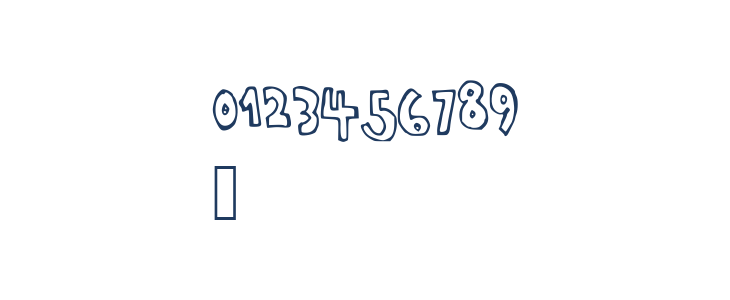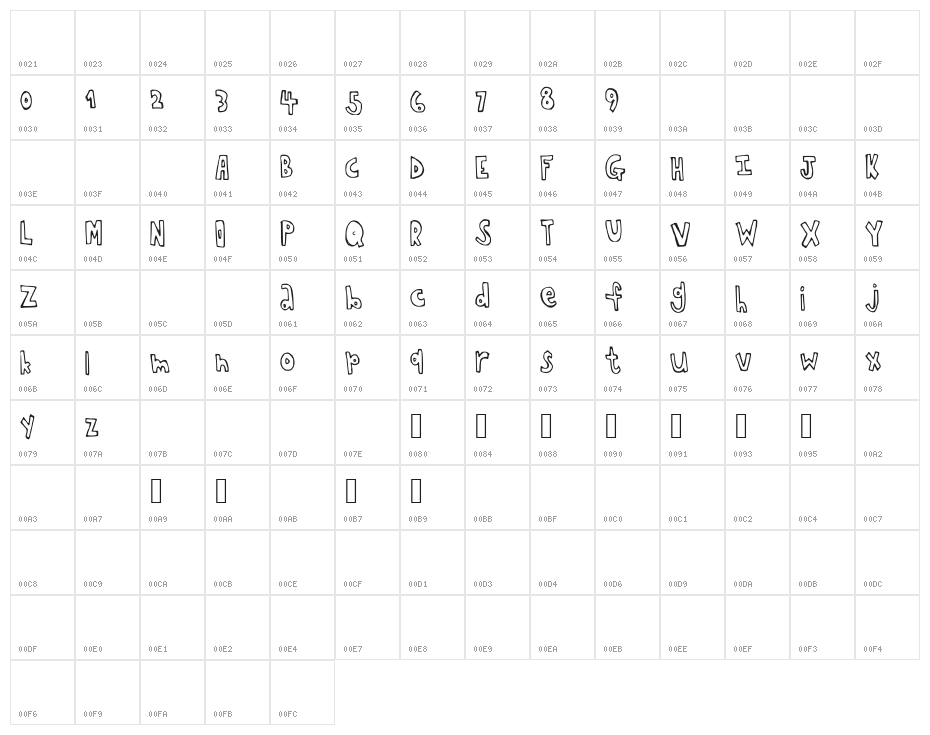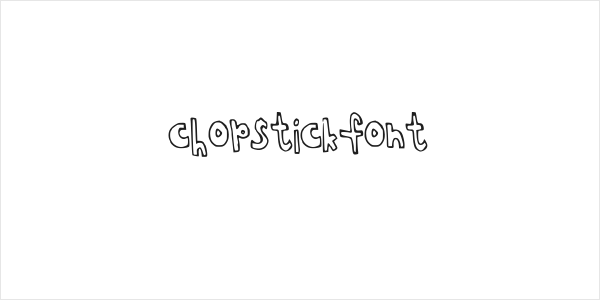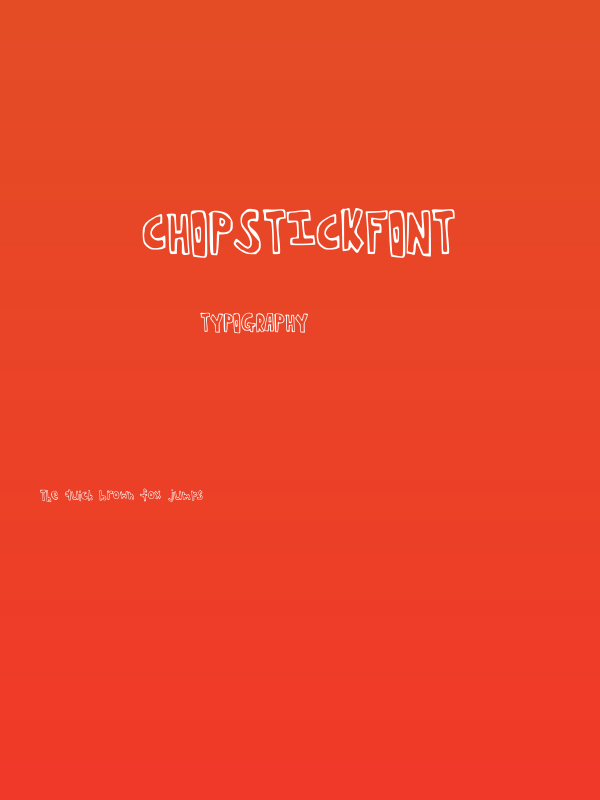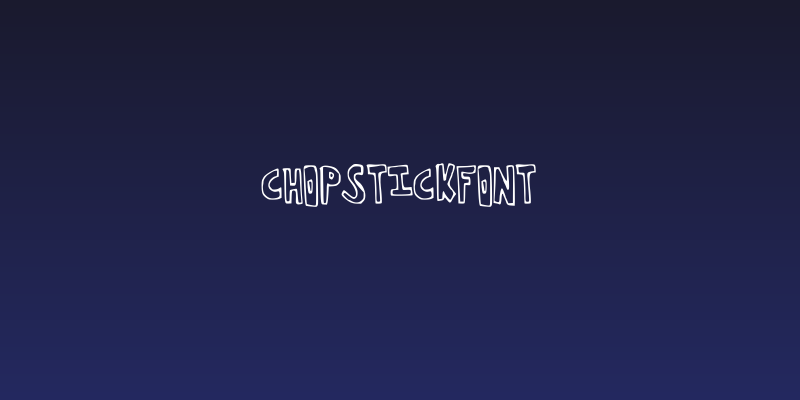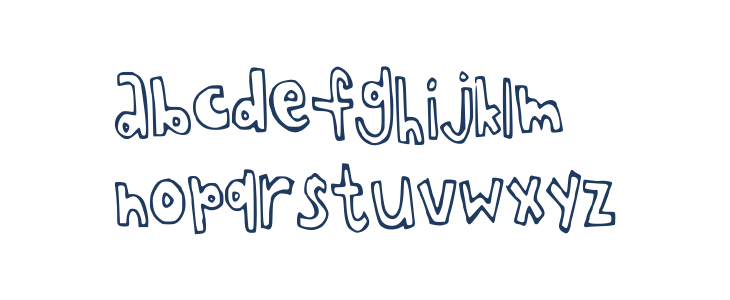
chopstickfont Font
chopstickfont Description
This playful and bold font features a hand-drawn, cartoonish style with thick, uneven strokes that give it a lively and informal appearance. The characters are outlined with a consistent thickness, creating a bubble-like effect that is both eye-catching and whimsical. The uppercase and lowercase letters maintain a consistent style, with rounded edges and a slightly irregular baseline, adding to the casual and fun aesthetic. The numbers and special characters follow the same design principles, ensuring a cohesive look across all elements. This font is ideal for projects that require a touch of humor and creativity.
| Overall Style | Whimsical, Playful |
| Proposed Projects | Ideal for children's books, comic strips, playful branding, party invitations, and creative posters. |